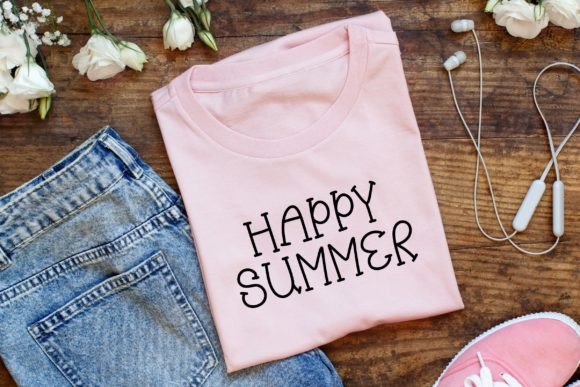
Dreamy Girls Font
Introducing “Dreamy Girls” the girly handwritten font that effortlessly captures the essence of brightness and childhood charm. Perfect for note-taking, digital planners, educational materials, GoodNotes, greeting cards, quotes, handwritten notes, and more, “Dreamy Girls” infuses a sense of whimsy into your creative projects. With its playful strokes and feminine allure, this font brings a dreamy quality to your designs, making every endeavor a delightful expression of creativity.